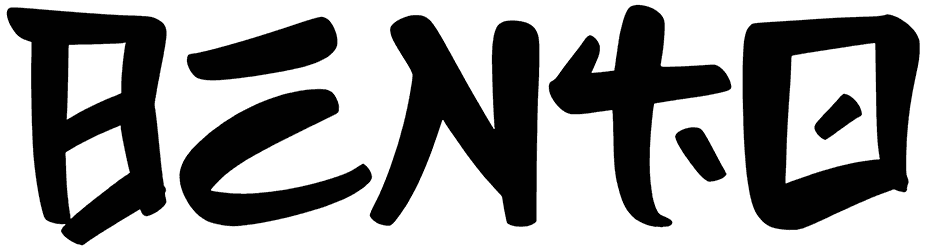
Bento Font
Dive into the rich cultural background of China or Japan with another one of our awesome Samurai fonts called Bento. It feels strongly Asian, as if written with the thick strokes of a brush, but it’s actually in English.
Before choosing Bento for your next lettering design, note that you can’t count on this Asian font for numbers or lowercase characters. There’s a second set of capitals instead, which will land perfectly on your martial arts class posters, movies, etc.